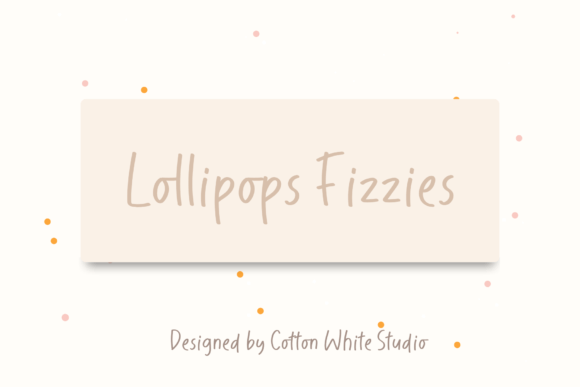
Behold, Lollipops Fizzies, the confectionery-inspired script font that adds a sugary sweet flavor to your digital creations. From your whimsical diary entries to joyful party invitations, this font carries the essence of playful delight.
Picture this: Your digital planner adorned with the swirling script of Lollipops Fizzies, transforming mundane tasks into delightful confections. Let your journal pages burst with cheerful greetings penned in this charming font, a testament to life's sweetest moments. Enchant your invitations, showering loved ones with the promise of a celebration sprinkled with joy. And as you jot down notes, let Lollipops Fizzies weave its magic, making even the most mundane tasks feel like a sweet escape.
Cotton White Studio, the masterminds behind Lollipops Fizzies, have meticulously crafted each letterform to exude a sense of whimsy and playfulness. This font is the perfect companion for those who want to infuse their digital creations with a touch of sweetness. Whether you're a creative entrepreneur, a passionate blogger, or simply someone who loves to add a personal touch to their digital projects, Lollipops Fizzies is your secret ingredient for a touch of enchantment.
So, dive into the world of Lollipops Fizzies, where words dance lightly on the page like sugar crystals sparkling in the sun. Experience the joy of transforming your digital space into a sugary paradise, where creativity knows no bounds. Unleash the sweet magic of Lollipops Fizzies today and let your imagination run wild!